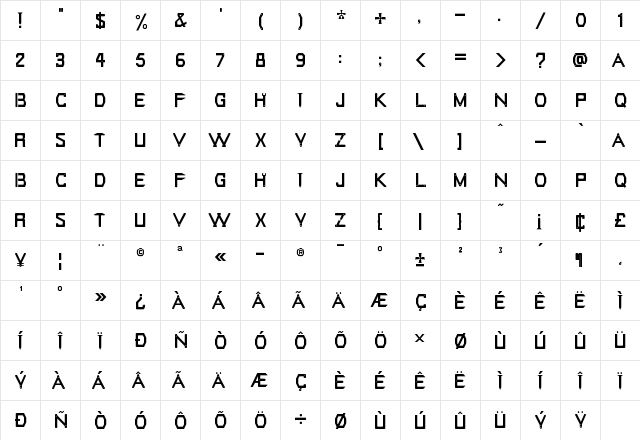
Ferrivetica Regular
Design Context for Ferrivetica Typeface
Ferrivetica offers clean, dependable letterforms without strong stylistic allegiance, making it a practical choice for designers who need flexibility.